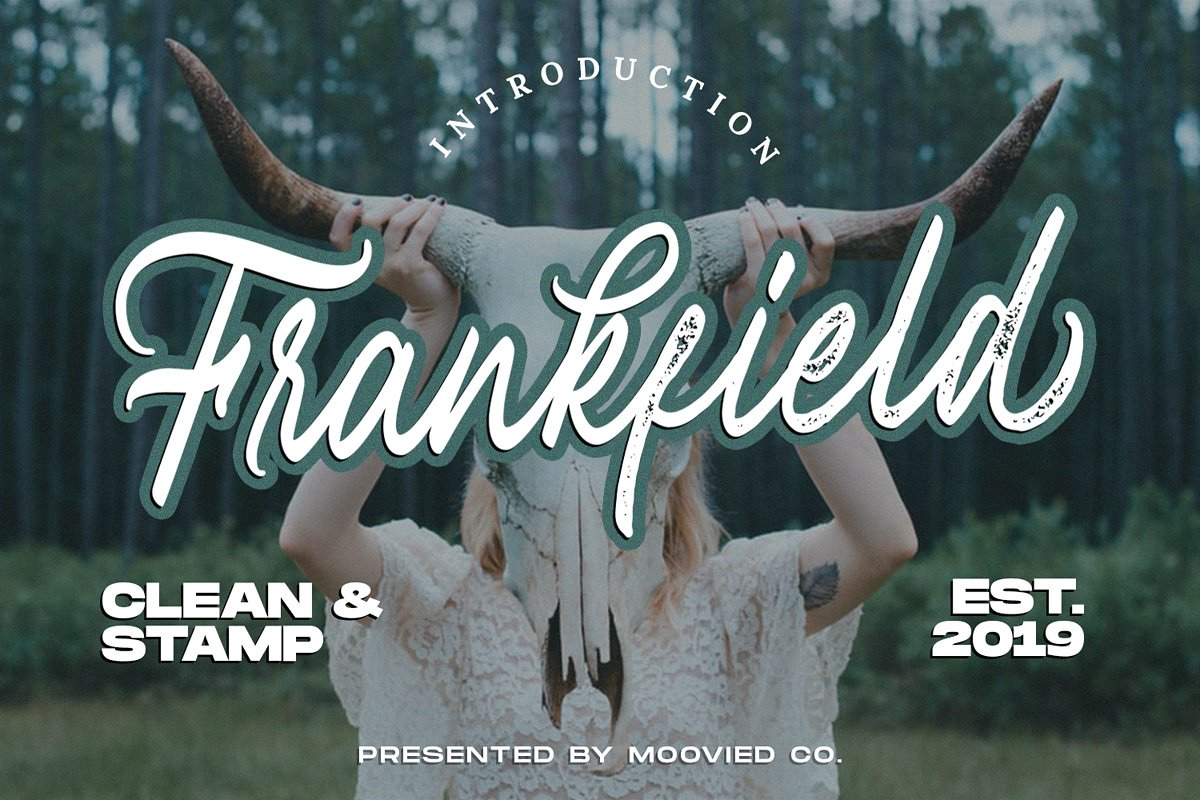
Frankfield Script + Stamp
Frankfield Script Font is perfect for handcrafted branding projects, artisanal business identities, personal stationery design, boutique shop communications, romantic wedding invitations, heartfelt greeting cards, creative studio materials, and authentic advertising campaigns. This charming typeface works beautifully in both digital applications and print media where personal touch and handwritten authenticity are essential design elements.
What makes Frankfield Script Font so exciting is its genuine interpretation of natural penmanship through flowing letterforms that capture the warmth and individual character of authentic handwriting with personal care and artistic flair. The font features graceful characters with handwritten proportions, organic curves, and personal details that create an immediate sense of intimacy, craftsmanship, and the irreplaceable value of human touch in creative expression. Its personal personality and artisanal heritage make it ideal for brands seeking to establish genuine connections with their customers while communicating handmade quality, individual attention, and the authentic charm of personal craftsmanship.
The Frankfield Script Font family includes multiple stylistic variations with different handwriting intensities, along with natural alternates and artisanal ornamental elements. Each style maintains the typeface's personal character while offering comprehensive character sets including handwritten numerals, intimate punctuation marks, and special symbols designed to enhance personal communications and authentic branding efforts across various heartfelt contexts.
This extraordinary typeface represents the perfect fusion of handwritten authenticity and professional functionality for boutique and artisanal industries. Whether you're developing craft business identities, creating handmade product packaging, or designing intimate event materials, Frankfield Script Font Free Download provides the genuine warmth and versatility needed to create meaningful personal connections. The font's handcrafted appeal makes it particularly effective for artisanal producers, boutique shops, personal services, and businesses celebrating the beauty of individual craftsmanship and authentic human connection.
The meticulously preserved handwritten characteristics and optimized personal performance in Frankfield Script Font ensure both authentic charm and clear communication across all personal applications. Its intimate presence makes it perfect for personal branding, handcrafted marketing materials, and authentic communications where its full script character can create emotional bonds with audiences seeking genuine quality, individual attention, and the irreplaceable warmth of handwritten personal expression.